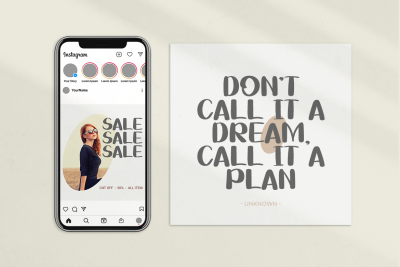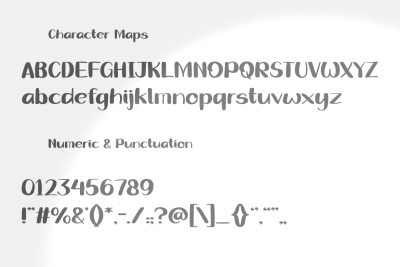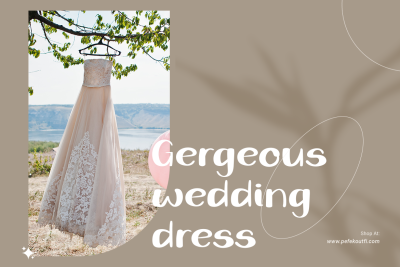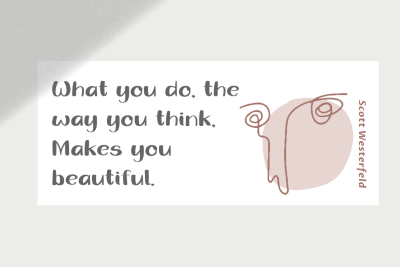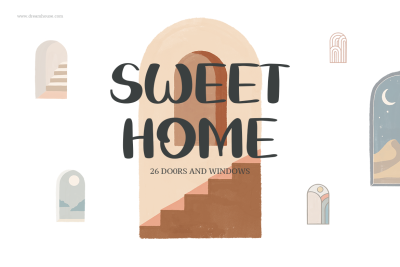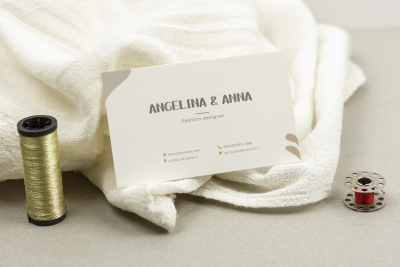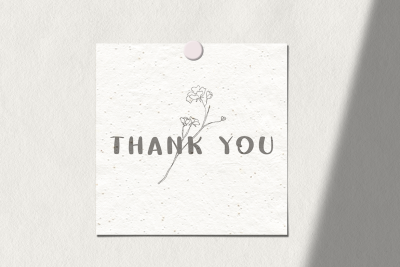
Handwriting Font Sunday Vibe is a charming and stylish typeface. It perfectly balances modern elegance with playful femininity. Designed with smooth, rounded strokes and a natural handwritten feel, this typeface brings warmth and personality to any project. Whether you’re crafting branding materials, social media graphics, or invitations, Sunday Vibe ensures your text stands out with a unique yet approachable charm.
Furthermore, the organic flow of each letter mimics the effortless grace of casual handwriting. It is ideal for projects that need a personal and intimate touch. The slightly bold strokes give it a strong presence, while soft edges add a welcoming and friendly vibe. Moreover, Sunday Vibe blends seamlessly with various design styles, from contemporary minimalism to rustic bohemian aesthetics.
With well-balanced letterforms and stylish curves, Sunday Vibe conveys messages with sophistication and warmth. In addition, this font enhances readability without sacrificing artistic appeal. It is a go-to choice for designers looking to add an elegant yet casual tone.
Who is Handwriting Font Sunday Vibe For?
Sunday Vibe is perfect for designers, content creators, and branding experts seeking a modern yet personal touch. Its soft and stylish design makes it ideal for:
- Lifestyle Bloggers & Social Media Influencers: Enhance posts, Instagram stories, and Pinterest graphics with a handwritten font full of charm and authenticity.
- Boutique Branding & Logo Designers: Perfect for feminine and chic branding. Sunday Vibe looks beautiful on logos, business cards, and packaging. Additionally, it ensures sophistication while maintaining a friendly appeal.
- Wedding & Event Planners: Elevate wedding invitations, save-the-date cards, and event stationery with modern elegance. Notably, it helps set the tone for stylish and memorable occasions.
- Creative Entrepreneurs: Whether designing Etsy shop banners, product labels, or merchandise, Sunday Vibe adds a handcrafted feel to your brand. As a result, your products exude uniqueness and warmth.
- DIY Crafters & Printable Creators: Perfect for printable planners, journals, and scrapbooking. Consequently, it allows creators to design with both beauty and practicality in mind.
No matter your creative field, Sunday Vibe brings warmth and personality into your designs. With its elegant and playful blend, this font is a must-have for anyone seeking an inviting and stylish visual experience. Ultimately, it offers a versatile and engaging solution for any design project.